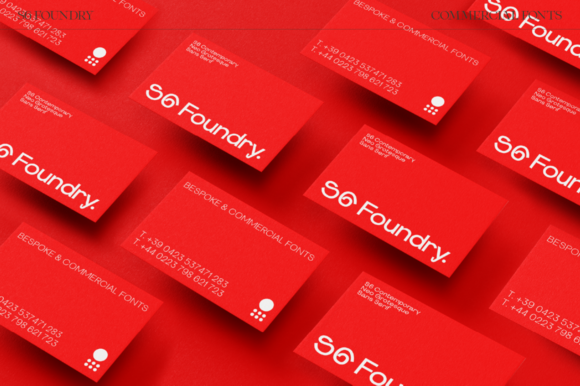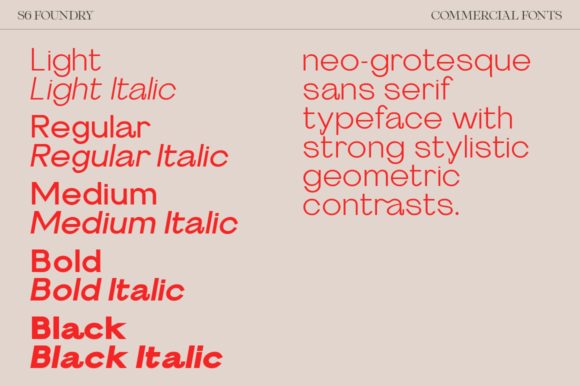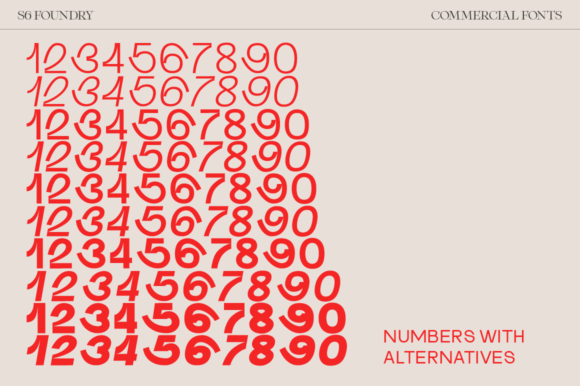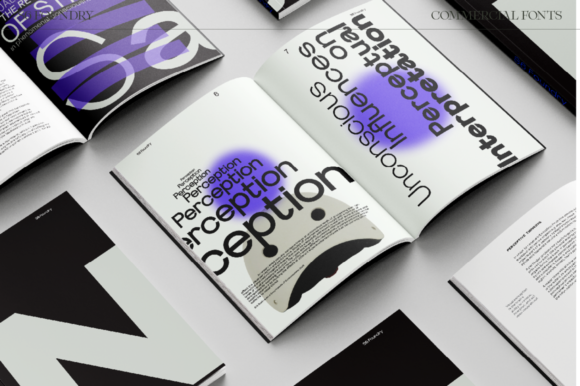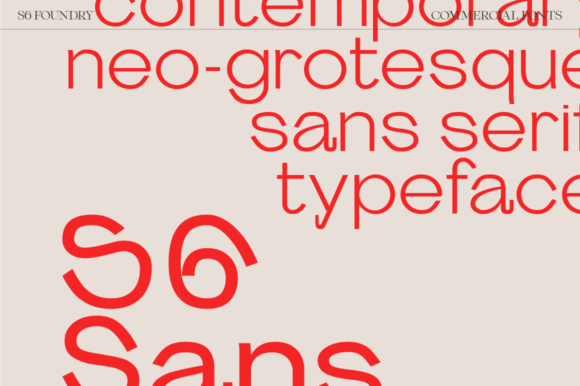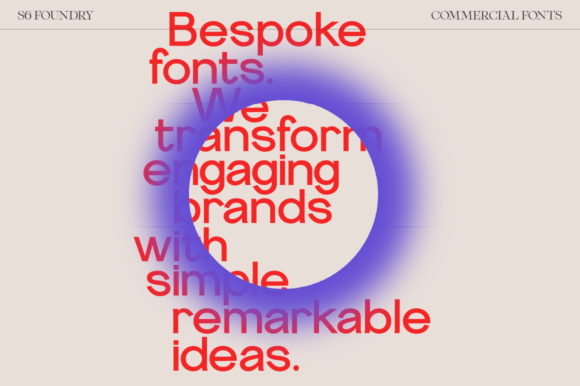
Introduction to S6 Sans Font
Have you ever stared at a blank canvas, waiting for that perfect font to bring your creative project to life? I know I have! As a designer, I’ve spent countless hours scouring the web for the perfect sans serif font to match my vision. And then, I stumbled upon the S6 Sans Font – a game-changer in the world of design.
What I love about the S6 Sans Font is its versatility. This high-quality font can be easily paired with a wide range of design elements, from logos to brochures, making it a valuable resource for any creative project. Plus, it’s available for a free download, making it accessible to designers of all levels.
Whether you’re working on a personal project or a client-based design, the S6 Sans Font is sure to elevate your work to the next level. Its clean and modern aesthetic makes it perfect for designs with transparent backgrounds, and its simple design ensures that it won’t compete with the other elements on your page. Trust me, once you add the S6 Sans Font to your design arsenal, you’ll wonder how you ever lived without it!
Key Features of S6 Sans Font
- High-quality, professional font designed for creative projects, available for free download.
- Comes with a transparent background, making it easy to overlay on any design element.
- Features a clean and modern design, ideal for use in logos, headings, and body text.
- Designed to be highly legible at various resolutions, including 72 DPI and 300 DPI.
- Perfect for designers and artists working on a wide range of creative projects, from print to digital media.
- Free to download and use, making it an excellent design resource for anyone looking for a high-quality sans-serif font.
Honest Review: S6 Sans Font
I recently stumbled upon the S6 Sans Font while searching for a high-quality design resource for a creative project. I was excited to give it a try and see if it would meet my expectations.
What works well: ✨ The S6 Sans Font is incredibly versatile and works well for a variety of applications, from digital to print. I was impressed with its clean and modern aesthetic, making it a great choice for a wide range of creative projects. Additionally, it’s a free download, which is always a bonus.
- High quality and modern aesthetic
- Works well for digital and print applications
However, I did encounter a few limitations: ⚠️ The font does not come with a transparent background, which can make it a bit more challenging to use in certain situations. Additionally, the font family is relatively small, which may limit its use in certain creative projects.
Overall, I would say that the S6 Sans Font is a solid choice for designers looking for a high-quality design resource. While it may have some limitations, its versatility and modern aesthetic make it a great addition to any design library.
Introduction to S6 Sans Font
The S6 Sans Font is a high-quality design resource that offers a modern and clean aesthetic perfect for creative projects. It’s available for free download and features a transparent background, making it easy to incorporate into any design.
Tips for Getting the Most Out of S6 Sans Font
To get the most out of the S6 Sans Font, try the following:
- Use the font in conjunction with other high-quality design resources for a cohesive look.
- Use the transparent background to create a sense of depth and dimension in your design.
Common Use Cases for S6 Sans Font
The S6 Sans Font is commonly used in:
Alternatives to S6 Sans Font1. Montserrat Font
Montserrat is a high-quality sans-serif font ideal for creative projects requiring a modern look. It’s available for free download and can be used for both commercial and personal projects. Montserrat works well for headings and titles due to its bold and clean appearance.
Compared to S6 Sans Font, Montserrat has a more geometric and urban feel, making it suitable for designs related to technology and urban landscapes. While S6 Sans Font has a more rounded appearance, Montserrat’s sharp edges provide a modern touch.
Can I use the S6 Sans Font for digital designs with a transparent background?
Yes, the S6 Sans Font is designed to work well with transparent backgrounds. This makes it an excellent choice for digital designs, such as website headers, social media graphics, and mobile app interfaces.